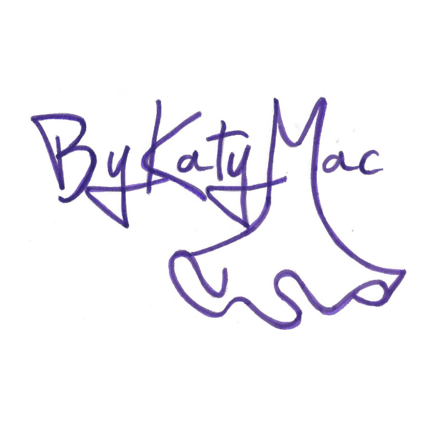
Does anyone recognise this font?
?? It looks almost completely hand drawn? But try one of the font identifier websites. You can apparently get an app too.